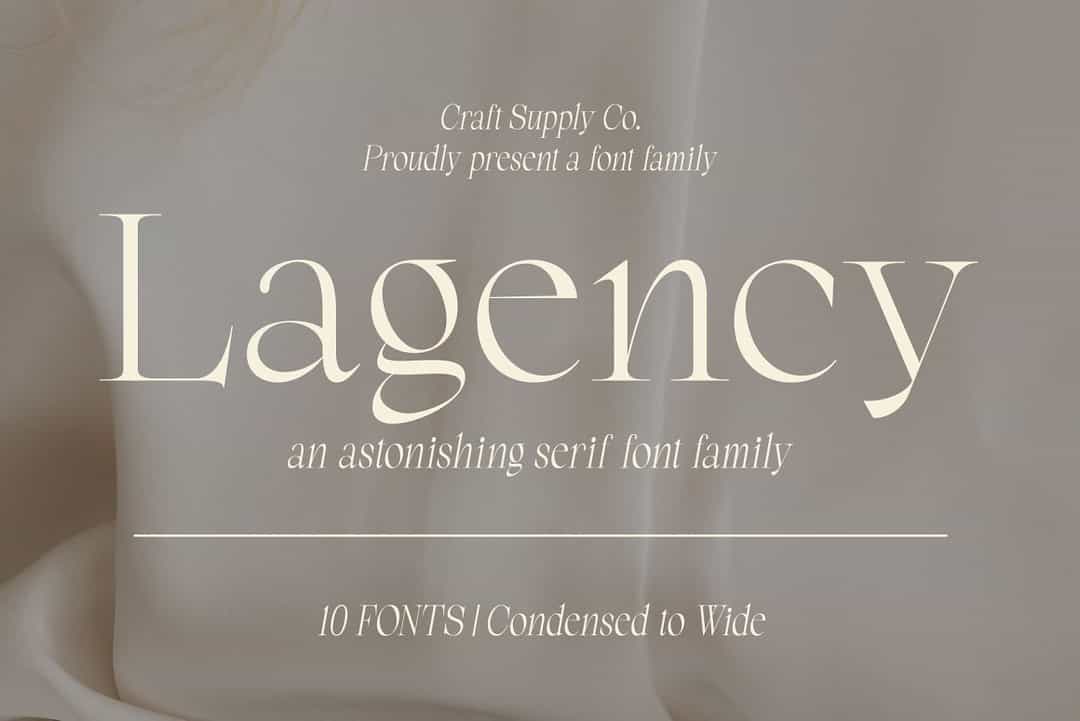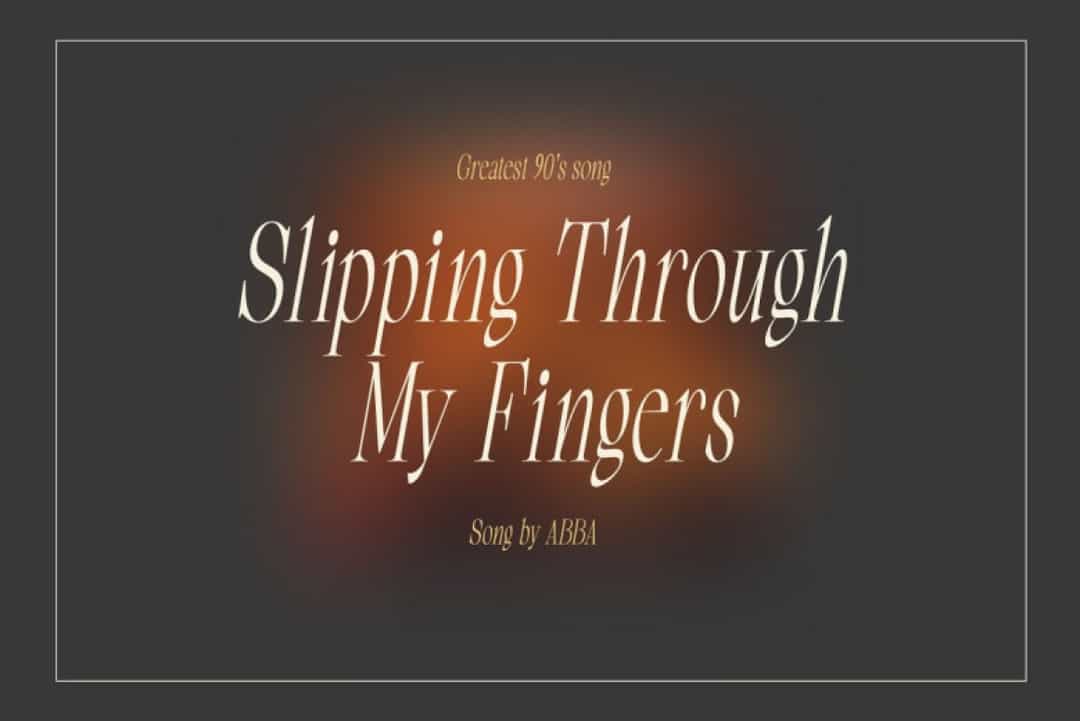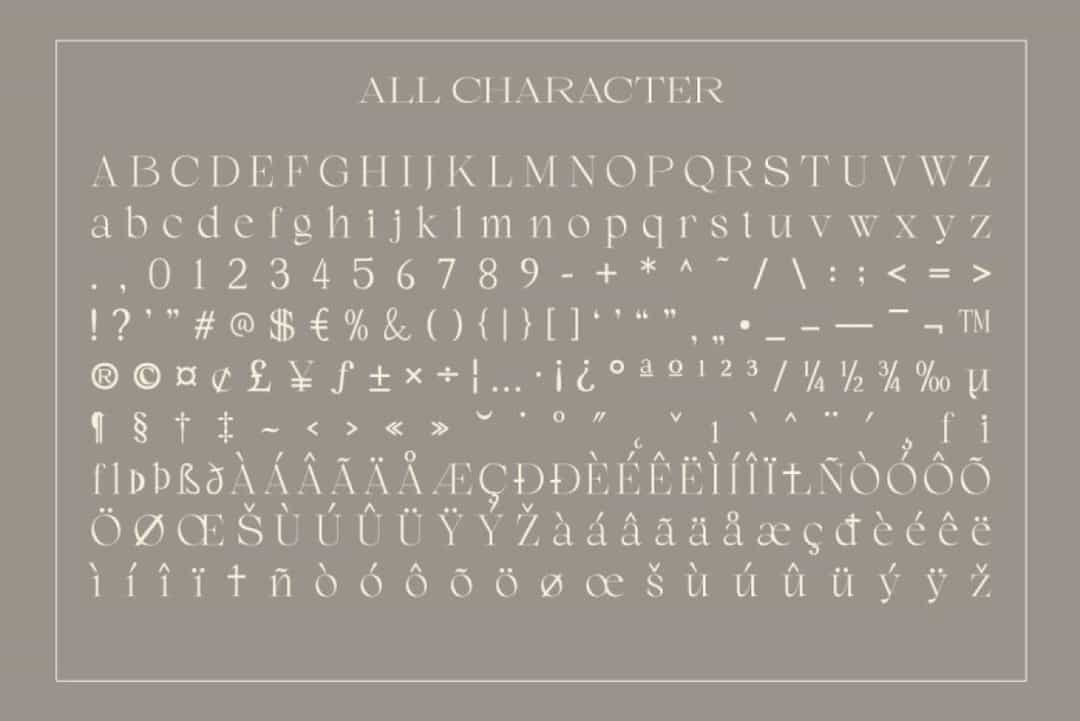
Lagency is an amazing serif typeface featuring 10 styles from condensed to wide. Lagency was designed by graphic design professionals who appreciate its versatile composition for print web and logo designs as well as print designs. Lagency can be customized easily.